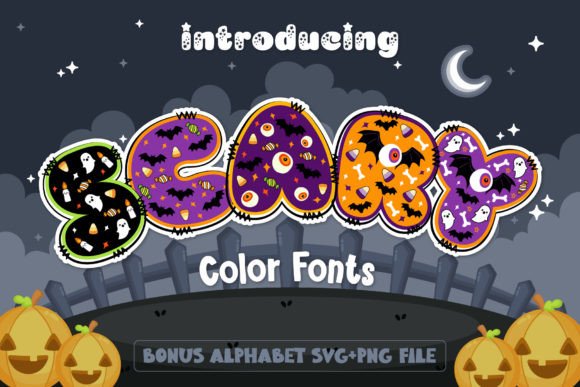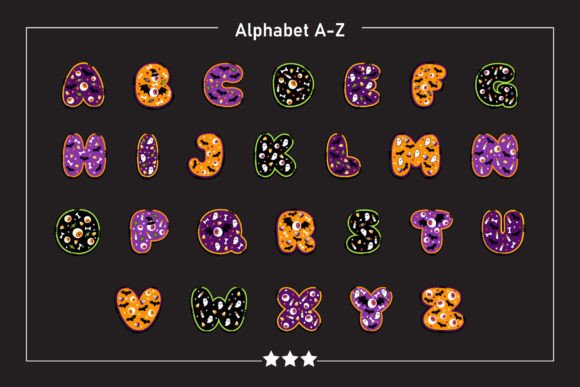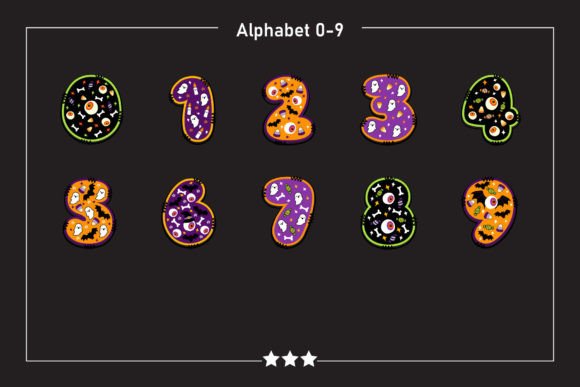
About Scary Font
Introducing Scary, a cute and fun Halloween-themed font that is filled with intricate details and vibrant colors. This font is perfect for all your Halloween, horror, or cute-themed projects, adding a delightful touch to your creative ideas.
Scary font captures the essence of Halloween with its playful and charming design. Each letter is carefully crafted with intricate details and vibrant colors, making it visually appealing and eye-catching. Whether you’re working on Halloween party invitations, spooky posters, children’s book covers, or any other project related to Halloween, Scary font will bring a special charm to your designs.
With Scary font, you can create a unique and memorable visual experience. The combination of cute and scary elements makes it versatile and suitable for various purposes. You can use it to design Halloween-themed logos, banners, social media graphics, merchandise, and much more. Let your imagination run wild and watch your creations stand out with the whimsical charm of Scary font.
Add a touch of fun and excitement to your Halloween and horror-themed designs with Scary font. Let your creativity shine and create captivating visuals that will delight and engage your audience.